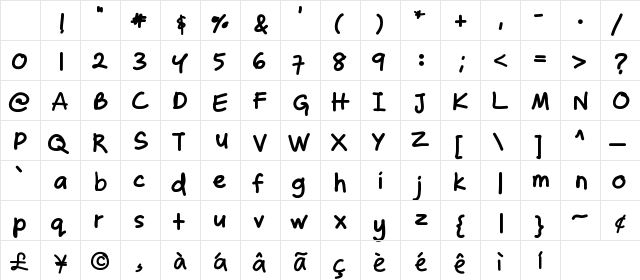
Complete Zakirahs Bold glyph index. Displaying only characters natively supported by Zakirahs Bold font.
Zakirahs is a composed and adaptable typeface that performs quietly and consistently across a wide range of design contexts. Its bold stroke weight gives it real presence on the page.